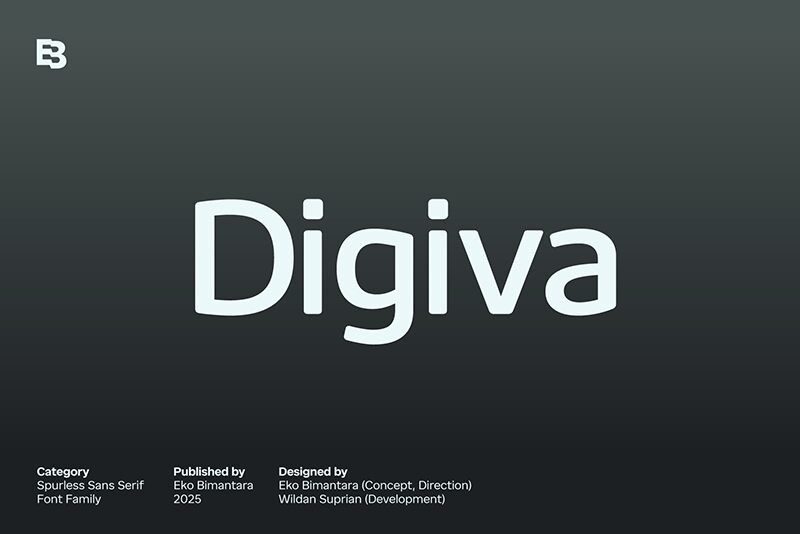
Digiva font family by Eko Bimantara comes in eight diverse font styles and offers a clean, simple, and beautiful take on a modern sans serif type design. This free font family seeks balanced proportions through the even spacing and slight overall width of characters. The font has a minimalist, up-to-date look and feel that reflects contemporary design trends. Professional and legible, it is a great addition to any font library and versatile to an unparalleled degree.
The open-ended stylistic possibilities of Digiva make it a great font option for digital interface design, tech branding, corporate identity design, product packaging design, and mobile application design. Further uses include magazine and newspaper design, publication design, business cards, advertising campaigns, and poster design. Try it in an e-commerce platform, a blog design, or as the typography of a luxury brand.